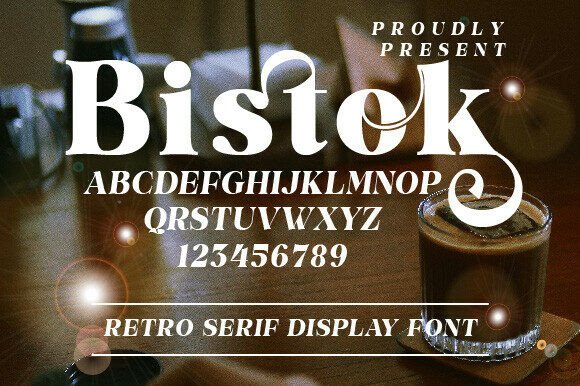
Introducing Bistok Retro Display Serif Font: A Timeless Classic for Creative Projects
Have you ever been in the middle of a design project, and suddenly, you’re stuck on finding the perfect font? I recall a recent experience where I was working on a branding project for a vintage-inspired fashion label. The client wanted a font that would evoke a sense of nostalgia and classic elegance. After hours of searching, I stumbled upon Bistok Retro Display Serif Font, and it was love at first sight! In this article, I’ll share my experience with Bistok Font, its features, and how to make the most of it in your creative projects.
A Personal Review of Bistok Font
What I Love About Bistok Font ✨
- ✅ Unique Retro Style: Bistok Font boasts a distinctive retro-style design that instantly adds a touch of classic elegance to any project.
- ✅ Bold Serif Letterforms: The font features bold serif letterforms that are perfect for making a statement.
- ✅ Balanced Proportions: The balanced proportions of the font ensure that it remains clear and legible, even at large sizes.
- ✅ Strong Character Details: The font’s strong character details add a level of sophistication and professionalism to any design.
- ⚠️ Limited Use in Body Text: While Bistok Font is perfect for headlines and titles, it may not be the best choice for body text due to its bold and serif nature.
- ⚠️ Requires Careful Pairing: Bistok Font requires careful pairing with other fonts to ensure that the overall design remains harmonious.
The Backstory of Bistok Font
Bistok Font was designed with the intention of creating a unique and timeless typeface that would evoke a sense of nostalgia and classic elegance. The designer aimed to create a font that would be perfect for creative projects that require a touch of sophistication and professionalism. Inspired by classic vintage designs, Bistok Font features bold serif letterforms, balanced proportions, and strong character details that make it highly eye-catching.
Q: What is Bistok Font best used for?
A: Bistok Font is perfect for creative projects that require a touch of nostalgia and classic elegance, such as branding, logos, product packaging, posters, titles, editorials, merchandise, labels, signage, and social media designs.
Q: Can I use Bistok Font for body text?
A: While Bistok Font can be used for body text, it may not be the best choice due to its bold and serif nature. It’s recommended to use it for headlines and titles.
Q: Is Bistok Font easy to read?
A: Yes, Bistok Font is designed to be clear and legible, even at large sizes. However, it may require careful pairing with other fonts to ensure that the overall design remains harmonious.